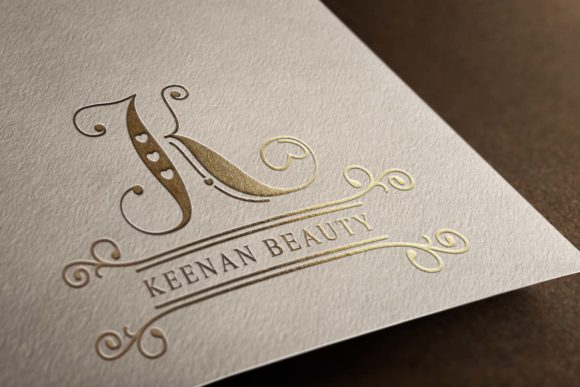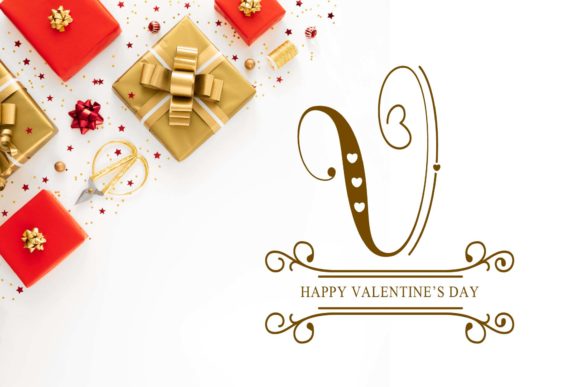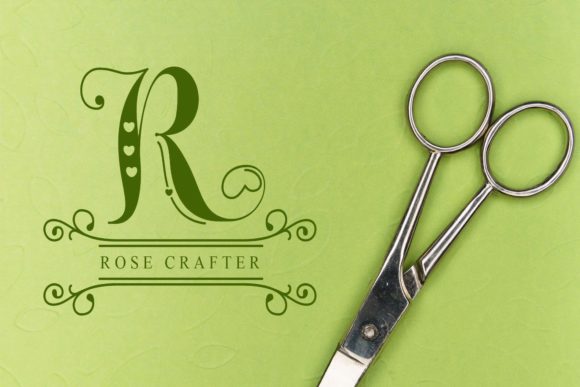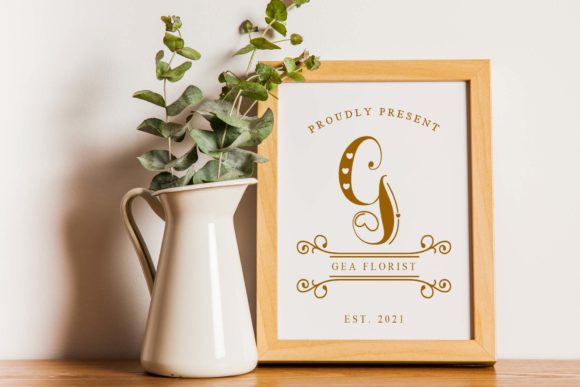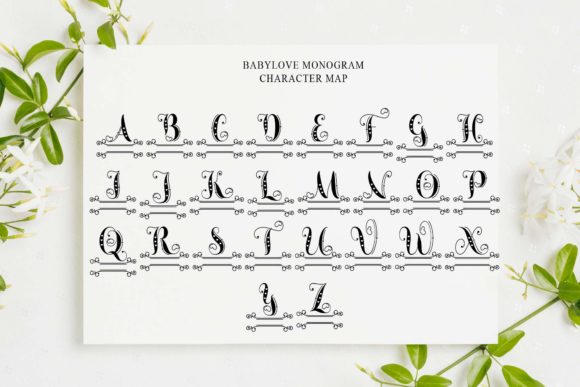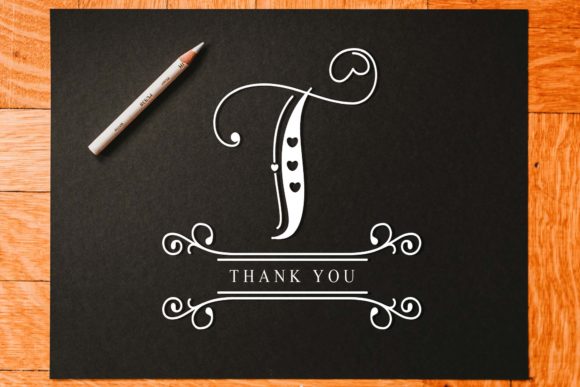
Unleash Your Creativity with the Babylove Monogram Font
As a designer, have you ever stumbled upon a font that sparks joy and inspiration? For me, it was the moment I discovered the Babylove Monogram Font. Its sweet, decorative charm instantly captivated me, and I knew I had to learn more about it.
The Babylove Monogram Font is a delightful, hand-drawn script designed to evoke a sense of warmth and authenticity. Perfect for creating special moments, this font is ideal for crafting beautiful wedding invitations, stunning stationary art, eye-catching social media posts, and adorable greeting cards. Whether you’re a seasoned designer or a creative enthusiast, the Babylove Monogram Font is a valuable addition to your toolkit, offering endless possibilities for self-expression and artistic exploration.
Babylove Monogram Font Key Features
- Font Family: Babylove Monogram Font
- Character Count: 96 glyphs
- Unique Characteristics: Whimsical, cursive, and hand-drawn design elements; perfect for baby-themed designs, invitations, and stationery
Designer Review: Babylove Monogram Font
Overall, I think the Babylove Monogram Font is a delightful addition to any designer’s toolkit. Here are a few things that stood out to me: ✨
- Whimsical charm: This font has a unique, hand-drawn feel that’s perfect for baby-related projects or anything that needs a touch of playfulness.
- Customization options: The font includes various monogram styles and customization options, making it easy to create a personalized look.
- Easy to use: The font is well-behaved and easy to work with, even for designers who are new to monogram fonts.
However, there are a few limitations to keep in mind: ⚠️
- Limited font weights: The font only comes in a few weights, which may not be ideal for designers who need more flexibility.
- No language support: The font only supports a limited range of languages, which may be a problem for designers who need to create content in multiple languages.
- Not suitable for large-scale projects: Due to its decorative nature, this font may not be the best choice for large-scale projects where a more robust font is needed.
Overall, I think the Babylove Monogram Font is a great choice for designers who need a unique, playful font for smaller projects. Just be aware of its limitations and choose it accordingly.
Getting the Most Out of the Babylove Monogram Font
For optimal results, use the Babylove Monogram Font in a clean and simple design. Avoid using it with too much text or clutter. Experiment with different colors and combinations to create a unique look.
The Babylove Monogram Font is ideal for:
- Baby shower invitations
- Monogrammed nursery decor
- Customized baby gifts
- Wedding invitations and decor
Alternatives to Babylove Monogram Font
Pacifico is a beautiful, elegant script font perfect for creating a romantic and luxurious atmosphere. It’s ideal for wedding invitations, birthday cards, and other special occasions. Pacifico has a more refined and sophisticated look compared to Babylove Monogram Font, which makes it a great choice for high-end designs.
Carolyna Pro is a modern, elegant script font that’s perfect for creating a sophisticated and luxurious look. It’s ideal for branding, advertising, and editorial designs. Carolyna Pro has a more polished and refined look compared to Babylove Monogram Font, which makes it a great choice for designs that require a touch of elegance.
Great Vibes is a beautiful, elegant script font that’s perfect for creating a romantic and whimsical atmosphere. It’s ideal for wedding invitations, birthday cards, and other special occasions. Great Vibes has a more fluid and organic look compared to Babylove Monogram Font, which makes it a great choice for designs that require a touch of playfulness.